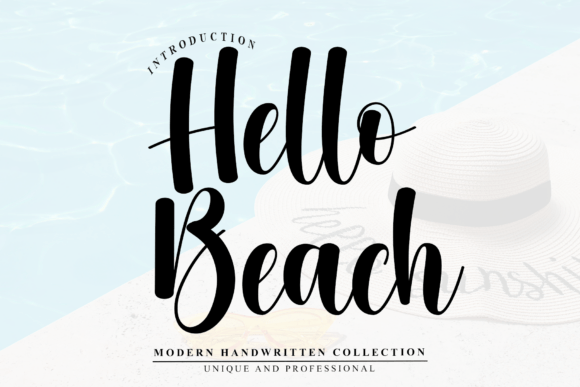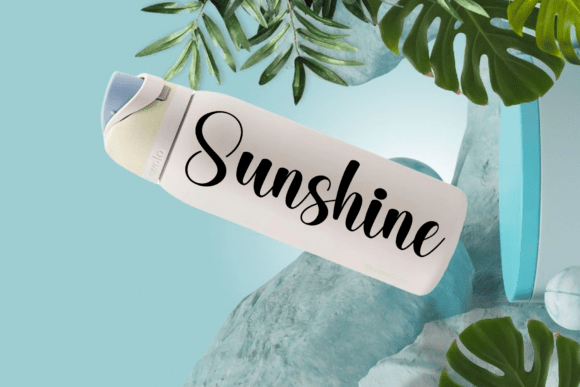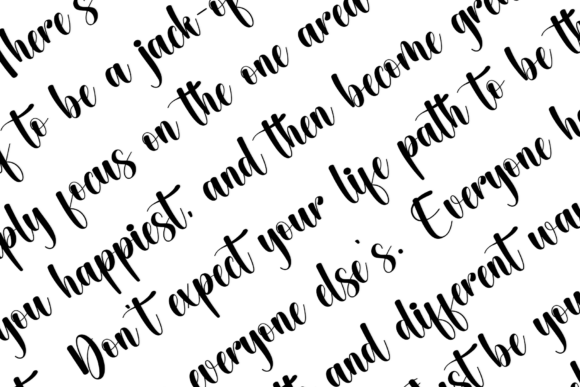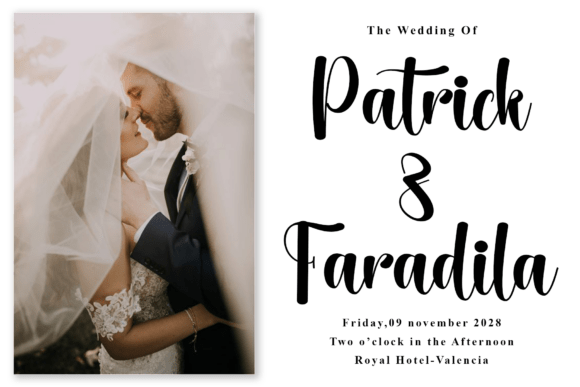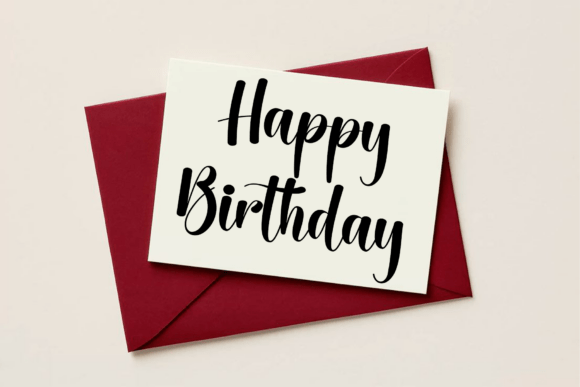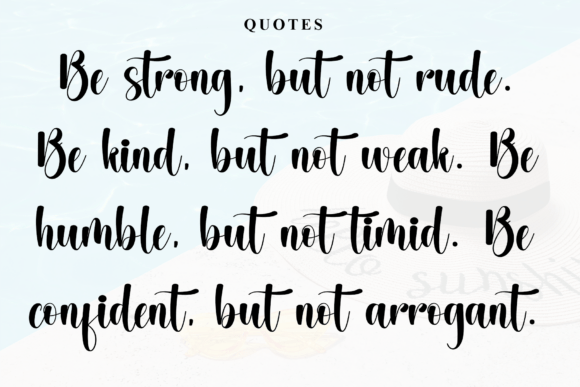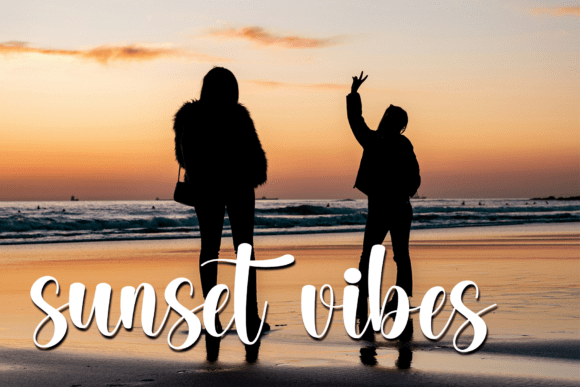
Discover the Charm of the Coast with Hello Beach Font
Have you ever been on a beach vacation and felt the stress of everyday life melt away with the sound of the waves and the warmth of the sun on your skin? That’s exactly the feeling you want to evoke in your designs with the Hello Beach Font.
This beautiful, modern handwritten font is designed to add an elegant and feminine touch to your branding, wedding invitations, logos, packaging, and social media posts. With its flowing curves, heart details, and natural script style, the Hello Beach Font brings a touch of sophistication to any creative project. As a designer, you’ll love the flexibility and charm this font offers, making it a valuable addition to your design toolkit.
With its full set of upper and lowercase letters, numbers, punctuation, and multilingual support, the Hello Beach Font is perfect for designers who want to add a personal touch to their work. And with PUA-encoded access to all glyphs, swashes, and alternate characters, you’ll have endless possibilities to create unique and eye-catching designs.
Hello Beach Font Key Features
- Font Family: Hello Beach is a beautiful, modern script font designed to evoke a sense of relaxation and fun.
- Unique Characteristics: Features a unique, hand-drawn style with subtle texture and imperfections, giving it a natural, beachy feel.
Designer Review: Hello Beach Font
Hello Beach Font is a beautiful, modern script font that instantly transports you to a sunny beach day. I love how it works well for:
- 🌴 Creating a carefree, beachy vibe
- ✨ Adding a touch of elegance to invitation designs
- ✨ Crafting a unique and eye-catching logo
However, I do have a few reservations:
- ⚠️ Limited font sizes: Hello Beach Font can be quite difficult to read at smaller font sizes (below 18pt)
- ⚠️ May not be suitable for body text: The font’s beauty lies in its decorative aspects, but it’s not ideal for lengthy paragraphs
- ⚠️ May require some font adjustments: Depending on your design, you may need to adjust the font’s spacing or kerning to achieve the desired look
Overall, I think Hello Beach Font is a wonderful addition to any designer’s toolkit. While it has some limitations, its unique charm and versatility make it a great choice for projects that need a touch of whimsy and elegance.
The Hello Beach Font is ideal for beach-themed designs, such as invitations, flyers, and posters. It’s also great for adding a touch of whimsy to your brand’s visual identity.
For optimal use, pair the Hello Beach Font with bright, calming colors like blues and greens. Experiment with different font sizes and styles to create visual interest.
Alternatives to “Hello Beach Font” for Designers
Pacifico Font is a beautiful, elegant script font that is perfect for creating a relaxing and soothing atmosphere. It is ideal for use in beach-themed designs, travel brochures, and other projects that require a touch of sophistication and calmness.
Compared to Hello Beach Font, Pacifico Font is more refined and has a more classic feel to it. While Hello Beach Font is more playful and casual, Pacifico Font is more suitable for formal designs.
Great Vibes Font is a modern, elegant script font that is perfect for creating a fun and energetic atmosphere. It is ideal for use in beach-themed designs, party invitations, and other projects that require a touch of playfulness and excitement.
Compared to Hello Beach Font, Great Vibes Font is more dynamic and has a more modern feel to it. While Hello Beach Font is more laid-back and casual, Great Vibes Font is more suitable for designs that require a lot of energy and movement.
Alex Brush Font is a beautiful, elegant script font that is perfect for creating a romantic and sophisticated atmosphere. It is ideal for use in wedding invitations, luxury branding, and other projects that require a touch of elegance and refinement.